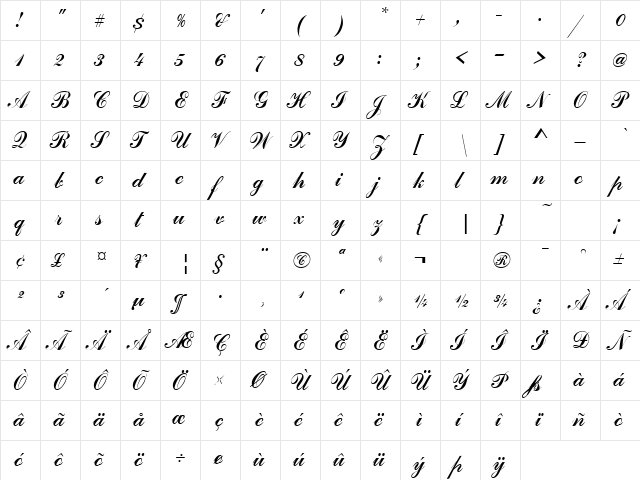
Handscript SF Regular
Design Context for Handscript SF Typeface
Handscript SF flows with the natural rhythm of handwritten lettering, making it ideal for designs that call for warmth and personal expression.
Font Pairing: Combine Handscript SF with a simple geometric sans for maximum contrast — the tension between flowing curves and clean structure is a classic typographic pairing.
Pro Tip: Use Handscript SF for short runs of text — names, titles, or taglines. Extended body copy in script faces tires the eye quickly.